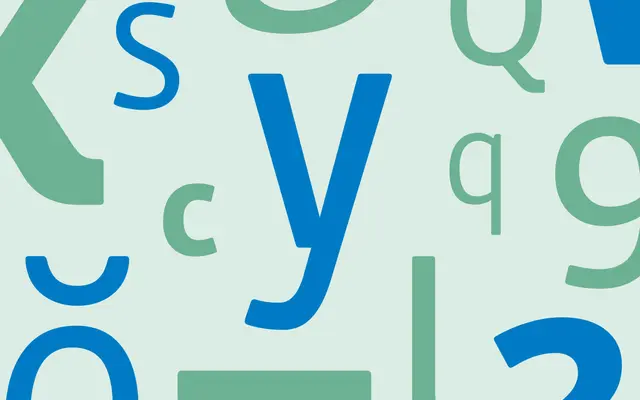
Calmetta
Dalton Maag · Elí Castellanos, Marc Weymann · 2017
A humanist sans by Elí Castellanos and Marc Weymann built for signage and wayfinding, with a generous x-height held inside slightly condensed proportions.
A humanist sans by Elí Castellanos and Marc Weymann, drawn for grid-based signage and wayfinding where legibility has to coexist with economy of space. Four upright weights run from Light to XBold and the family ships with wayfinding icons as part of its OpenType set. Reach for it on transport, civic and infrastructure work where you want a calm, trustworthy voice that holds up at distance.
Dalton Maag describe Calmetta as a contemporary humanist sans with a generous x-height and slightly condensed proportions, balancing legibility and economy of space for grid-based signage and wayfinding.